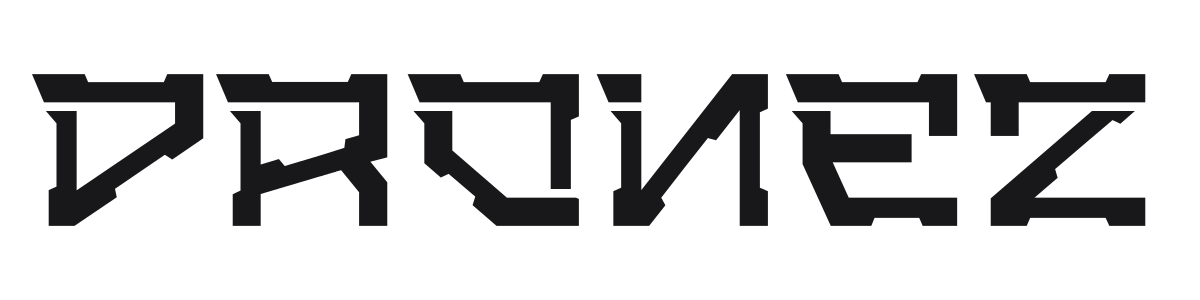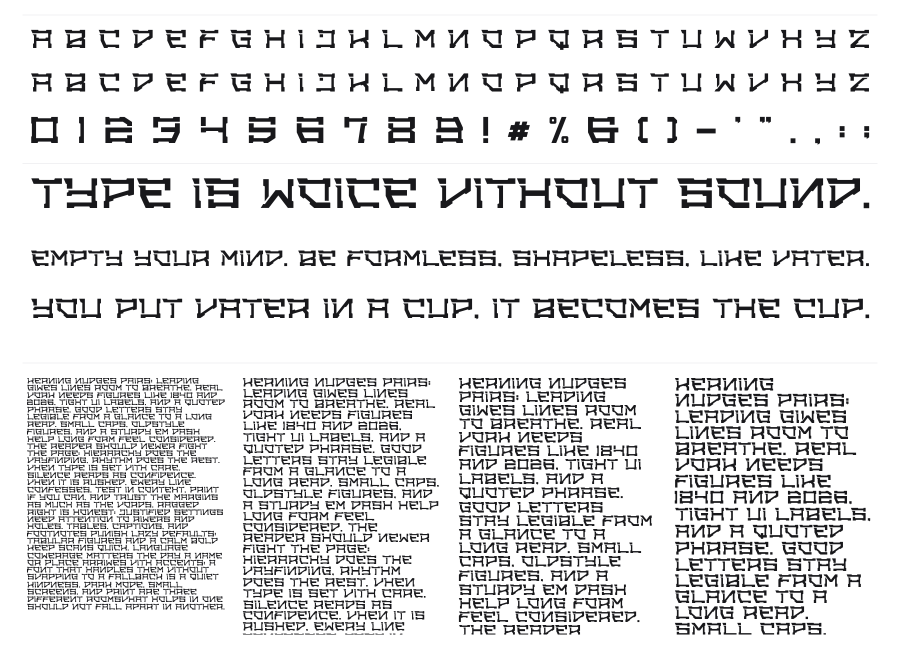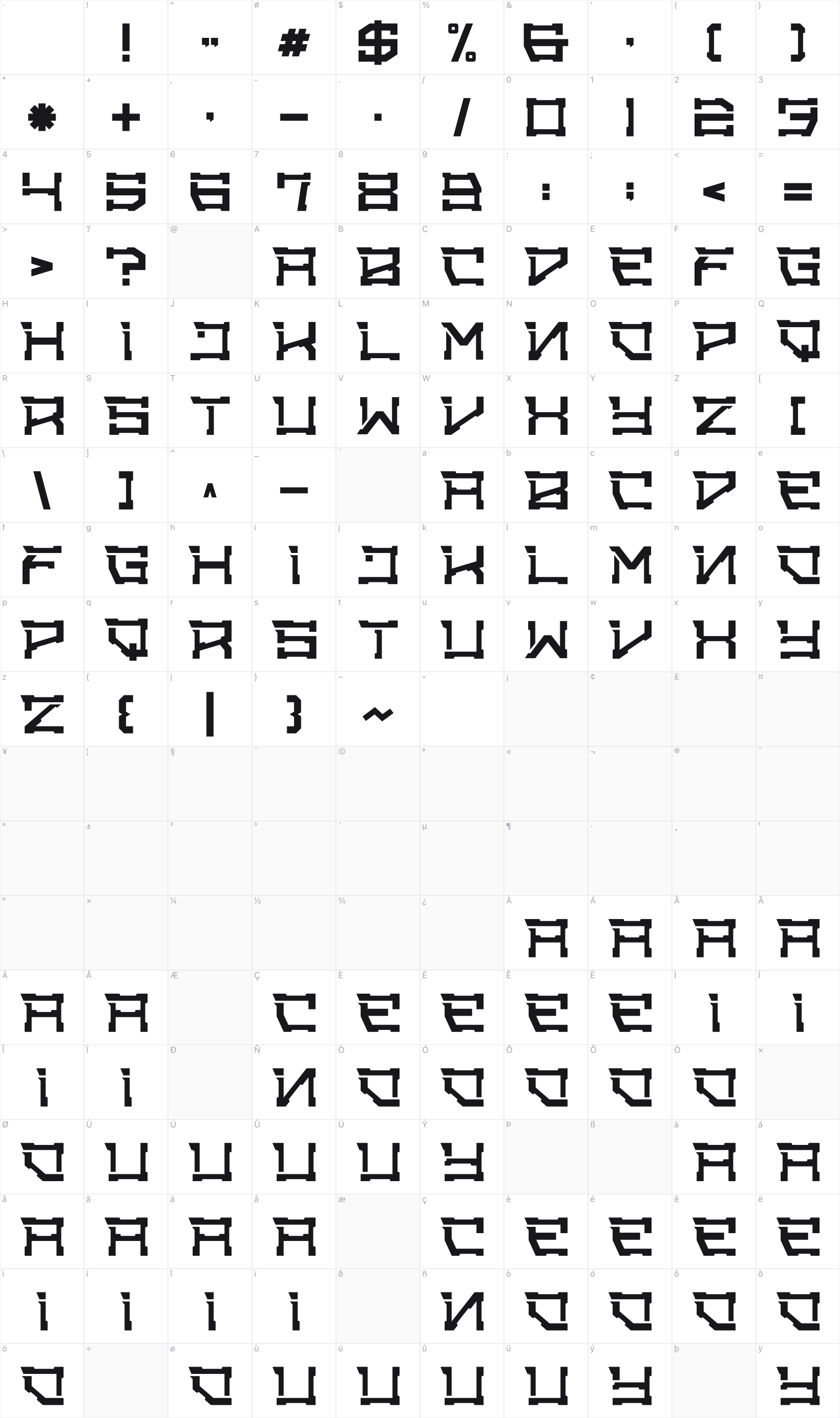
Dronez
Dronez is a square, segmented techno font built from angular, mechanically fractured strokes that suggest circuit boards and unmanned machinery. The deliberate cuts and notches at letter joints give it a fragmented, high-tech edge that reads immediately as gaming or military sci-fi. Strong at large sizes for titles, badges, and branding in action-heavy contexts.